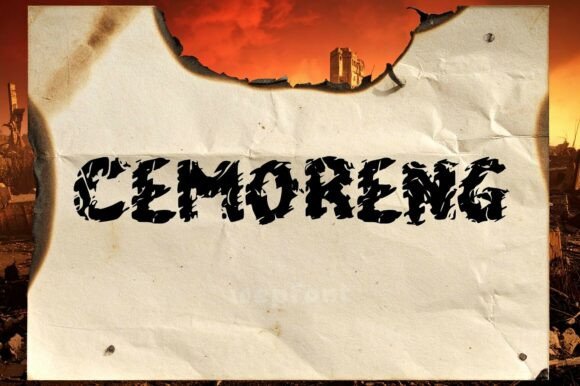
Unleash the Power of Cemoreng Font: A Decorative Display Font for the Bold
In the world of typography, few fonts manage to convey the essence of strength, courage, and rebellion as effectively as Cemoreng. This arresting decorative display font is designed to captivate audiences from the very first glance, exuding an unyielding strength and daring rebellion that is impossible to ignore. Born from the unbending tenacity of survival, the courage of confronting challenges, and the rugged allure of untamed landscapes, Cemoreng is the perfect choice for designers and crafters looking to make a bold statement.
The Inspiration Behind Cemoreng
Cemoreng’s design is deeply rooted in the idea of resilience and determination. Each textured, slightly weathered character looks as though it’s been carved and sculpted by the unyielding forces of nature, boasting a ruggedly attractive, worn-out appearance that epitomizes the courage to overcome adversity. The font’s robust stroke lines and minute detailing pulsate with life, establishing it as the perfect choice for projects that demand a robust visual impact.
Perfect for Bold Projects
Cemoreng is a font that doesn’t shy away from the spotlight – it charges forth, exuding a head-turning presence that commands attention. Its sturdy design makes it an excellent choice for a wide range of applications, including:
- Extreme sports branding: Whether it’s skydiving, rock climbing, or motocross, Cemoreng’s bold design perfectly captures the thrill and excitement of extreme sports.
- Military themes: The font’s rugged, resilient appearance makes it an ideal choice for military-themed projects, conveying a sense of strength, courage, and valor.
- Music branding: Cemoreng resonates powerfully with the visceral passion felt in rock, metal, and punk music, making it the perfect choice for band logos, album covers, and concert posters.
- Game titles: The font’s bold, attention-grabbing design makes it an excellent choice for game titles, adding a touch of excitement and adventure to any game.
- Movie posters: Cemoreng’s robust design also excels in movie posters, conveying a sense of action, drama, and suspense.
- Captivating headlines: Whether it’s a blog post, article, or advertisement, Cemoreng’s bold design makes it perfect for grabbing the reader’s attention and drawing them in.
What Makes Cemoreng Unique
So, what sets Cemoreng apart from other fonts? Here are a few key features that make it a standout choice:
- Textured, weathered appearance: Cemoreng’s characters have a worn, weathered appearance that gives them a unique, rugged charm.
- Robust stroke lines: The font’s bold, robust stroke lines give it a sense of strength and resilience.
- Minute detailing: The font’s intricate detailing adds a level of depth and complexity, making it perfect for projects that demand a high level of visual interest.
Tips for Using Cemoreng Effectively
To get the most out of Cemoreng, here are a few tips to keep in mind:
- Use it boldly: Cemoreng is a font that demands attention, so don’t be afraid to use it in bold, eye-catching applications.
- Experiment with colors: The font’s rugged design works well with a wide range of colors, so don’t be afraid to experiment and find the perfect combination for your project.
- Pair it with contrasting fonts: Cemoreng’s bold design works well when paired with contrasting fonts, so try pairing it with a clean, sans-serif font to create visual interest.
In conclusion, Cemoreng is a powerful, attention-grabbing font that is perfect for designers and crafters looking to make a bold statement. Its rugged, resilient design makes it an excellent choice for a wide range of applications, from extreme sports branding to movie posters. With its textured, weathered appearance, robust stroke lines, and intricate detailing, Cemoreng is a font that embodies the courage to overcome adversity and the strength to persevere. So why settle for a bland, generic font when you can unleash the power of Cemoreng and make a lasting impression?